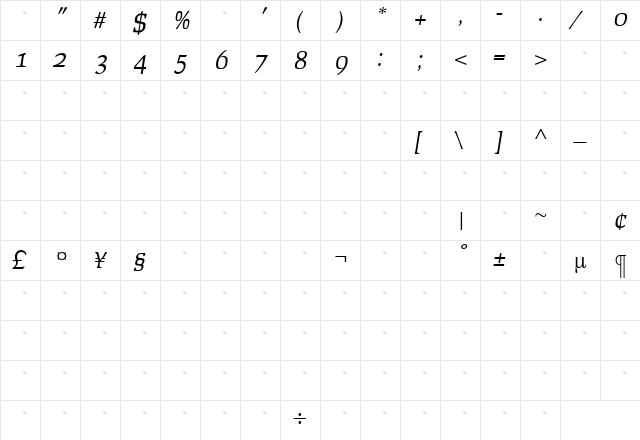
FaustLightItalicOldStyleFigsTab Medium Font Preview
Design Context for FaustLightItalicOldStyleFigsTab Typeface
FaustLightItalicOldStyleFigsTab carries the refined structure of traditional serif typography, with bracketed terminals and considered proportions that communicate credibility and craft. The dynamic lean of this cut emphasises speed and emphasis in any layout. The delicate stroke weight brings airiness and refinement to layouts.